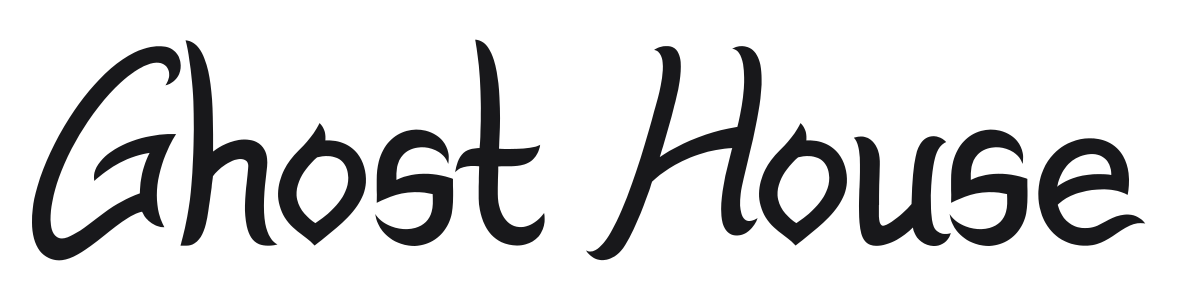
Ghost House
Ghost House is a bold Halloween display font by Strangertype with thick, organic strokes and dramatically curled terminals that evoke dripping or clawing shapes. The irregular, hand-drawn quality gives it an eerie playfulness that sits somewhere between spooky and fun. Built for seasonal branding, posters, and event graphics where the Halloween mood needs to come through immediately.